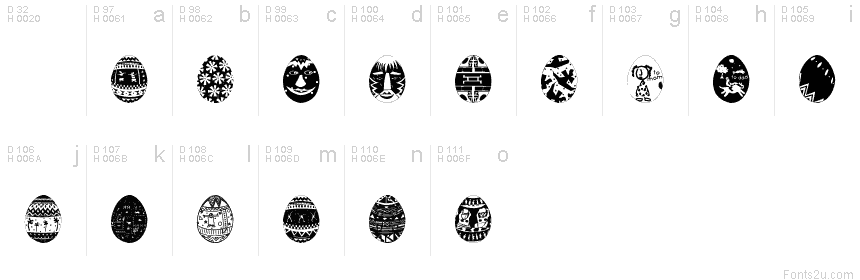
AfricanEggs
African Eggs font by Lime is a free decorative dingbat typeface that turns every keystroke into a richly patterned egg. Each oval is packed with bold, black-and-white motifs—tribal stripes, geometric bands, playful faces, animals, and zigzags—so your layouts feel hand-stamped and festive without any drawing required. The shapes are dense and inky, giving you a strong graphic punch that still reads cleanly at small sizes.
Using African Eggs, you can quickly build Easter cards, craft printables, packaging accents, party posters, stickers, and social graphics with a cohesive visual theme. This free font shines when the eggs are set large as icons or borders, then supported by a simple sans-serif for text. Try repeating a single egg as a pattern, or mix several for a vibrant, folk-inspired spread.